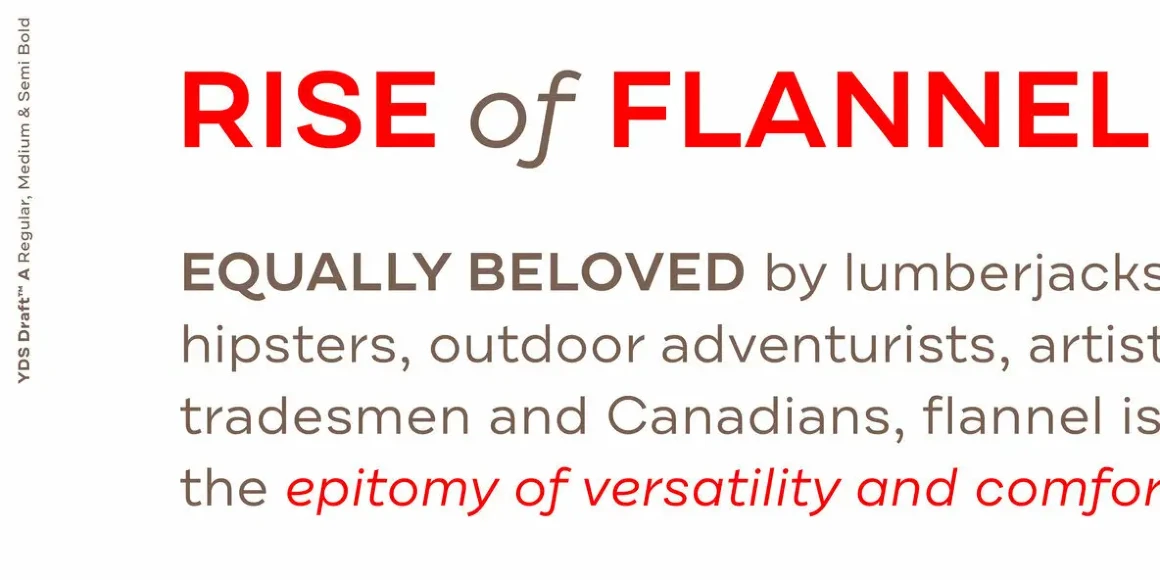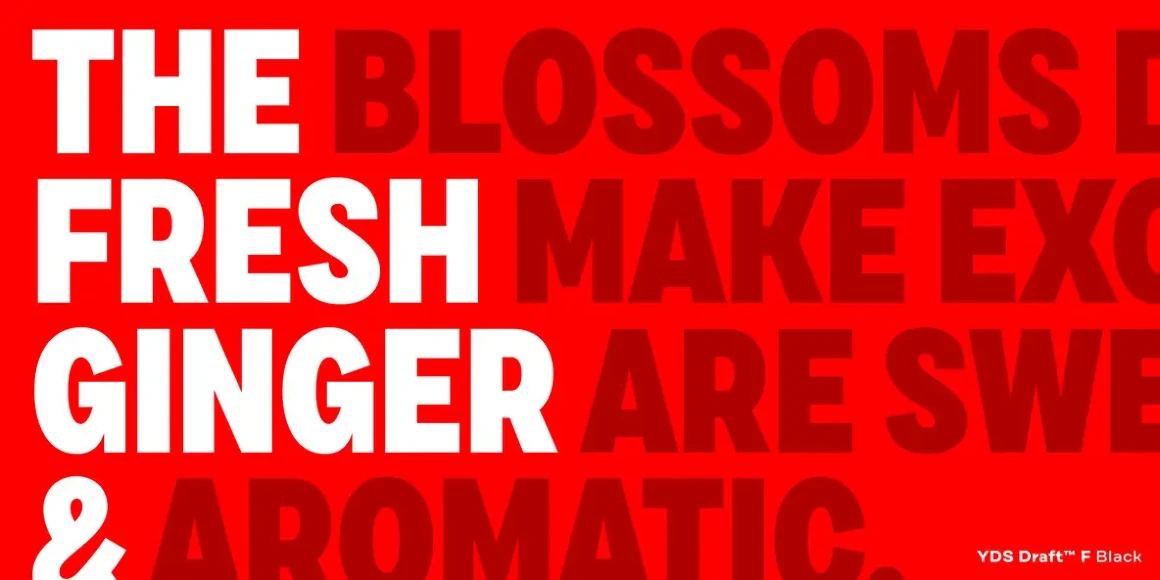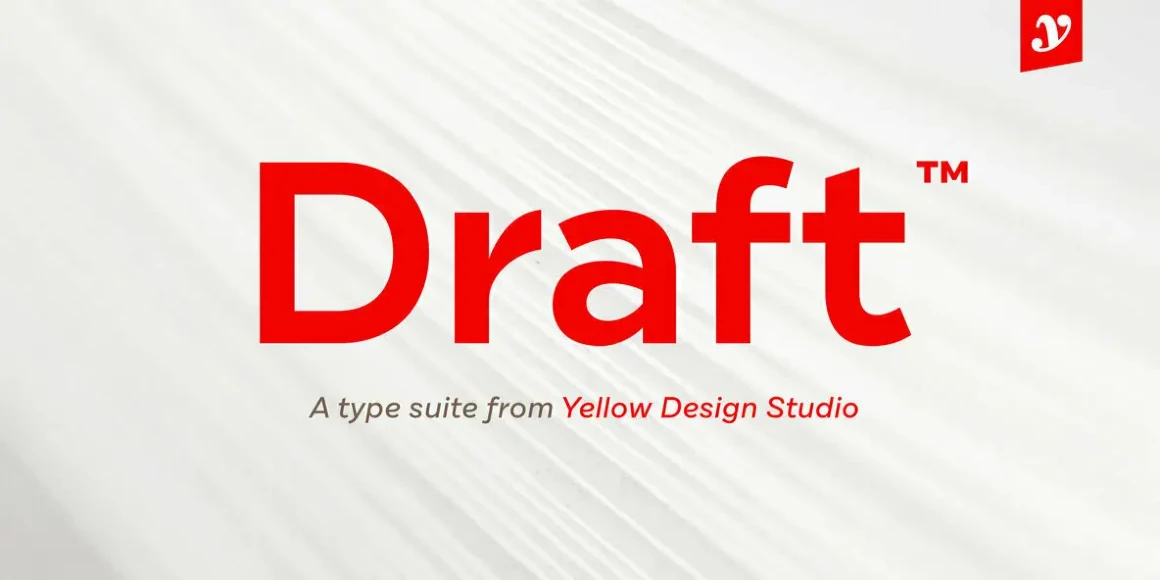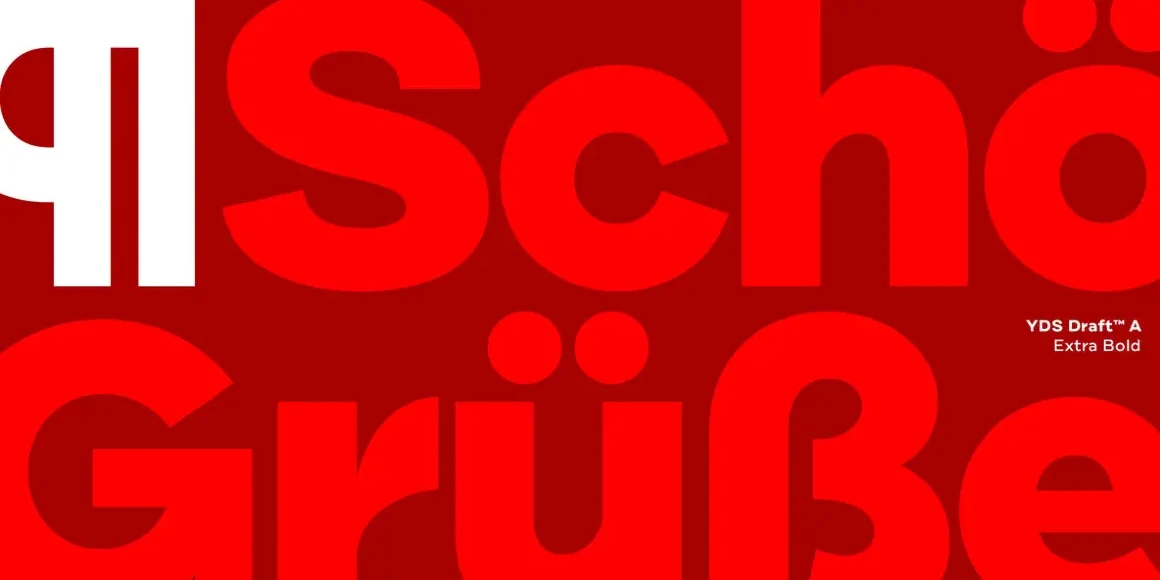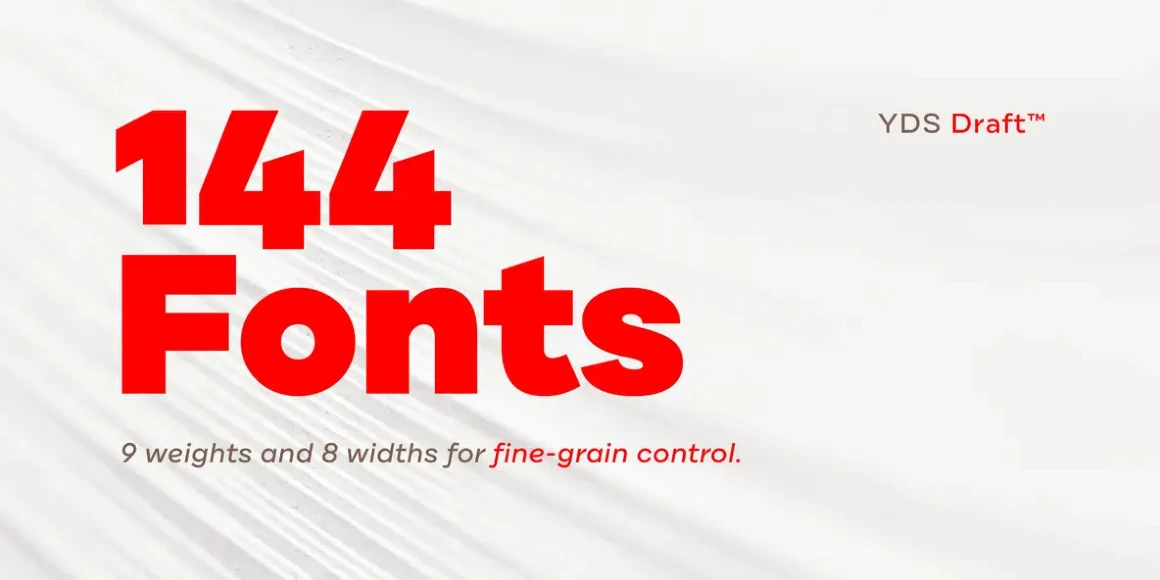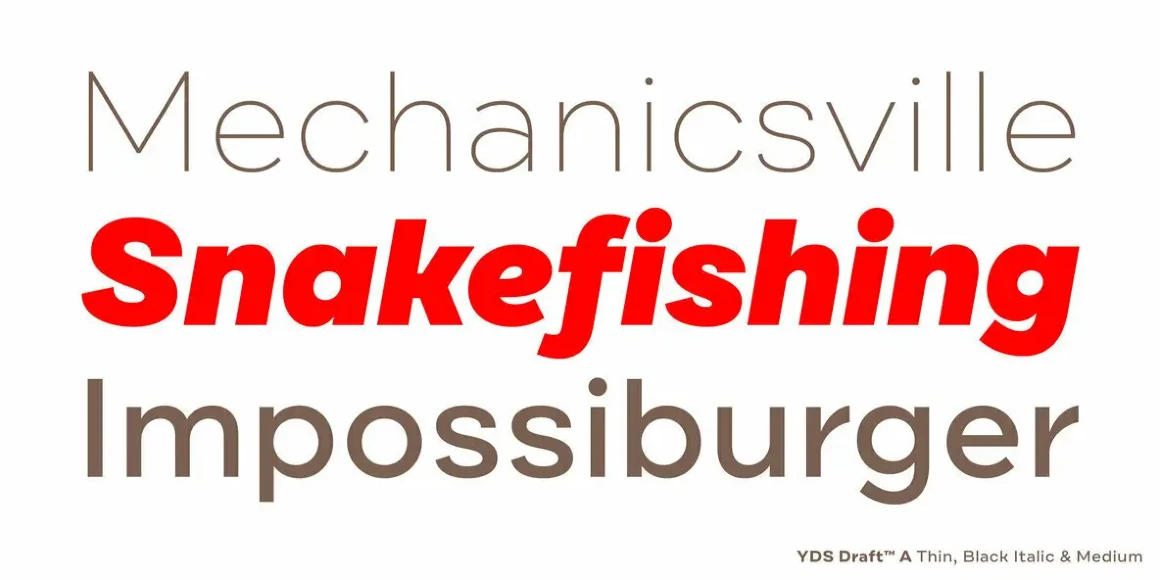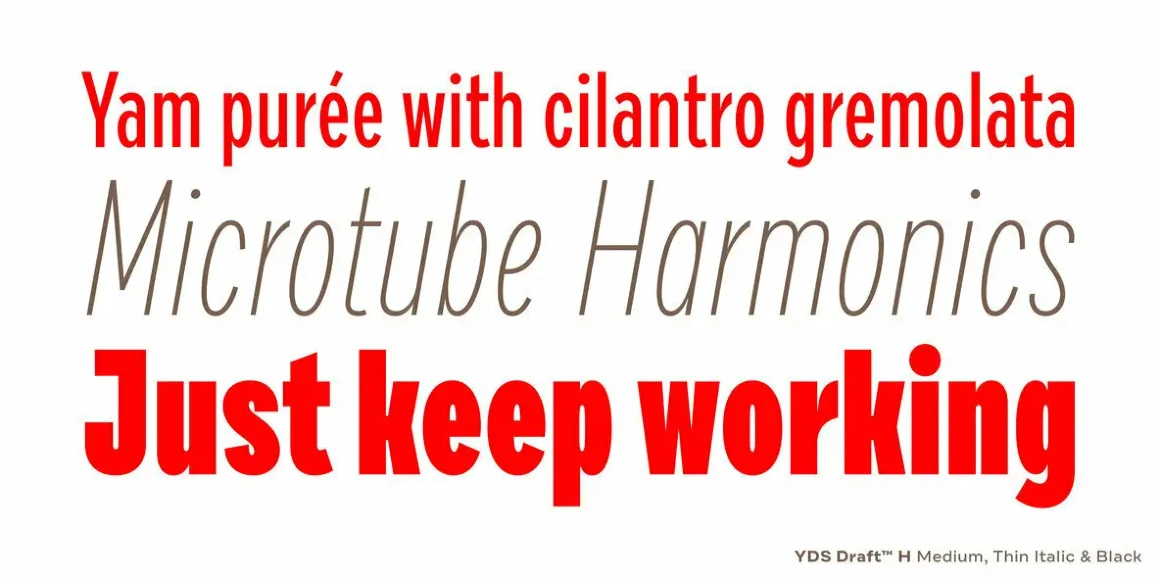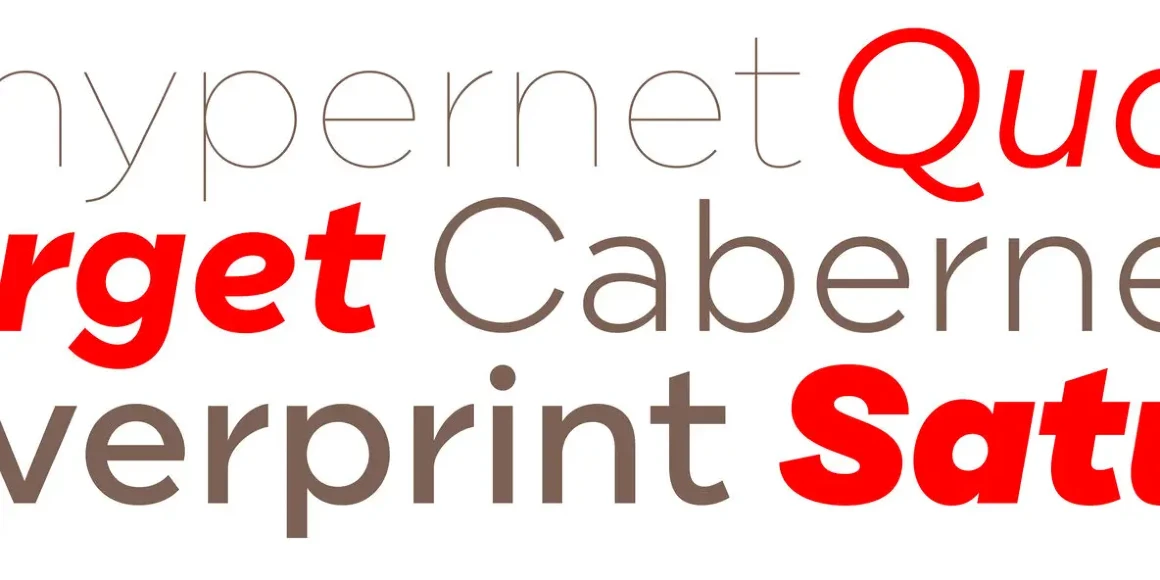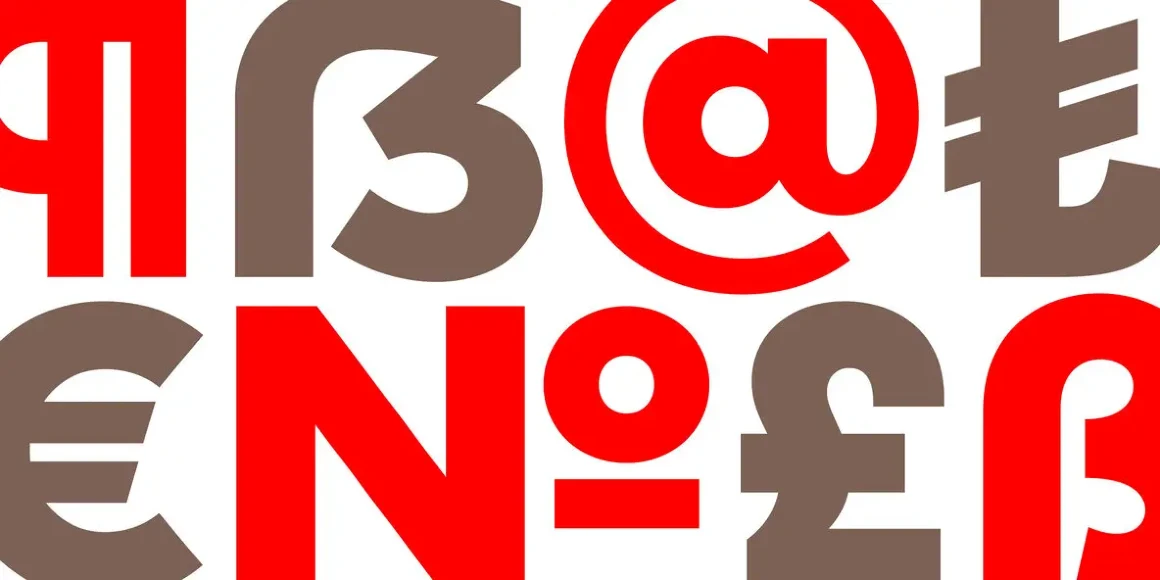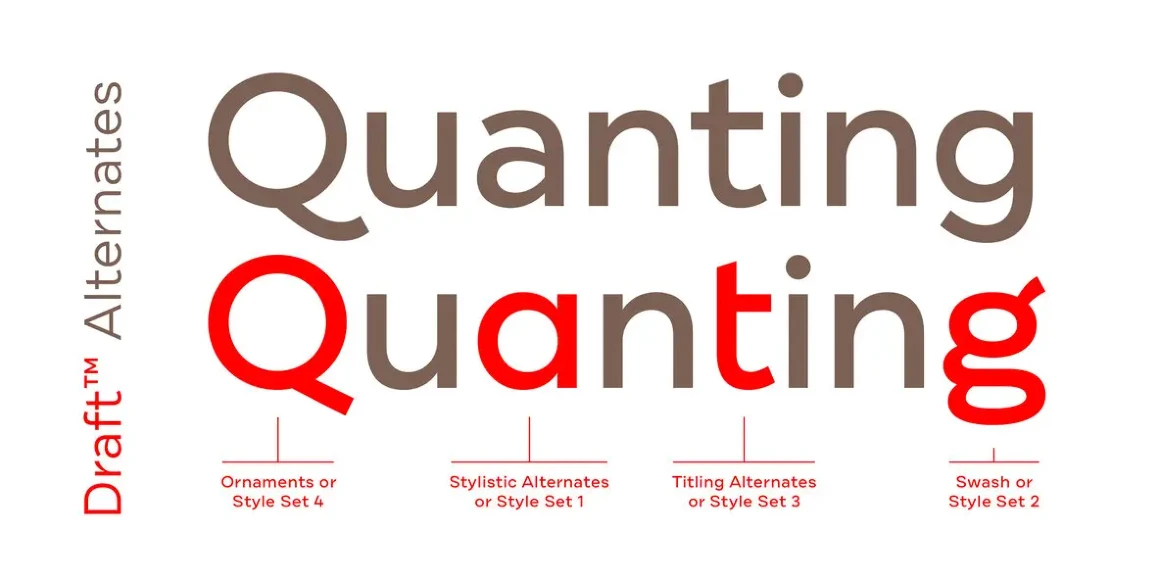
Draft
By Ryan Martinson & Rhea Martinson
Draft from Yellow Design Studio is a 144-font powerhouse type suite that’s smooth and confident with a decidedly modern edge. It features nine weights (Hairline to Black) and eight widths (A to H) for ultimate flexibility and fine-grain control. With almost 600 glyphs, Draft offers a full complement of professional typographic features and extensive language support.